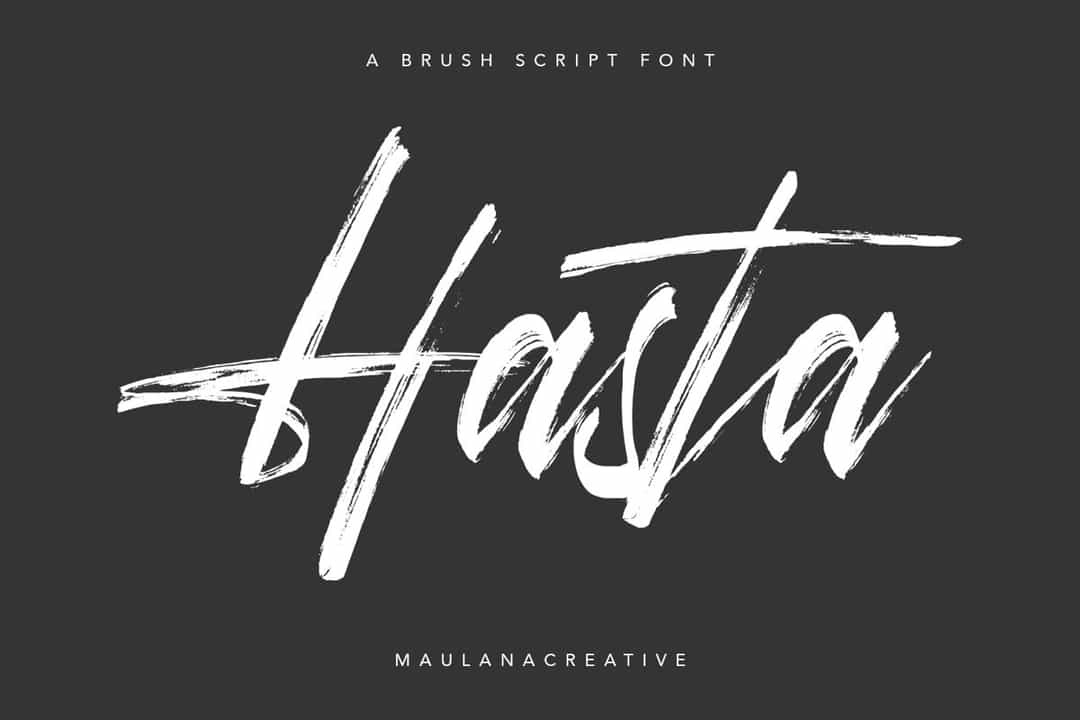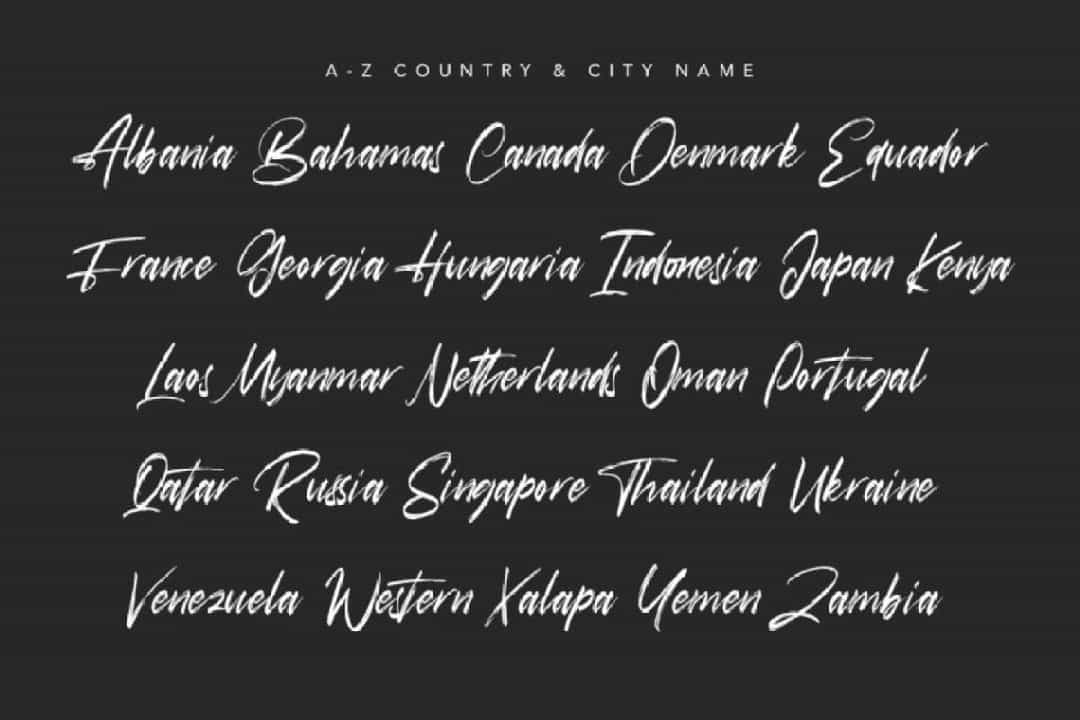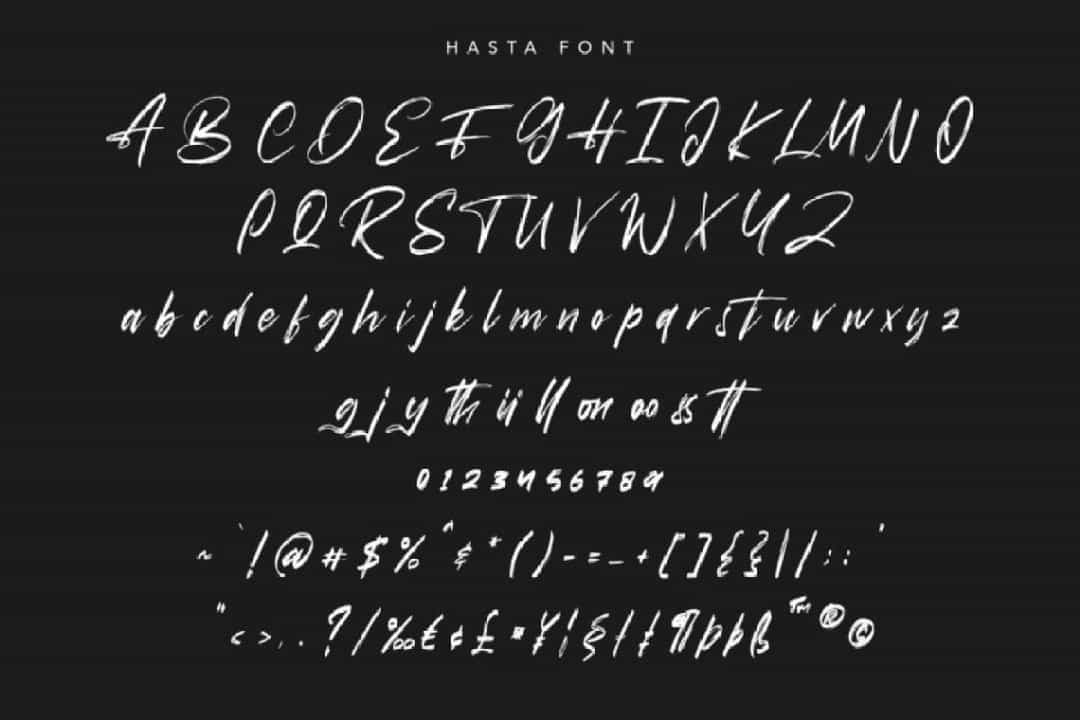
Hasta can be characterized as a cute and nice handwritten dry-brush script font made by Maulana Creative with the help of manual techniques to give it a natural look and feel that is suitable for many projects. The most suitable uses of Hasta are in magazines as well as in branding identities, packaging materials, and to promote products.